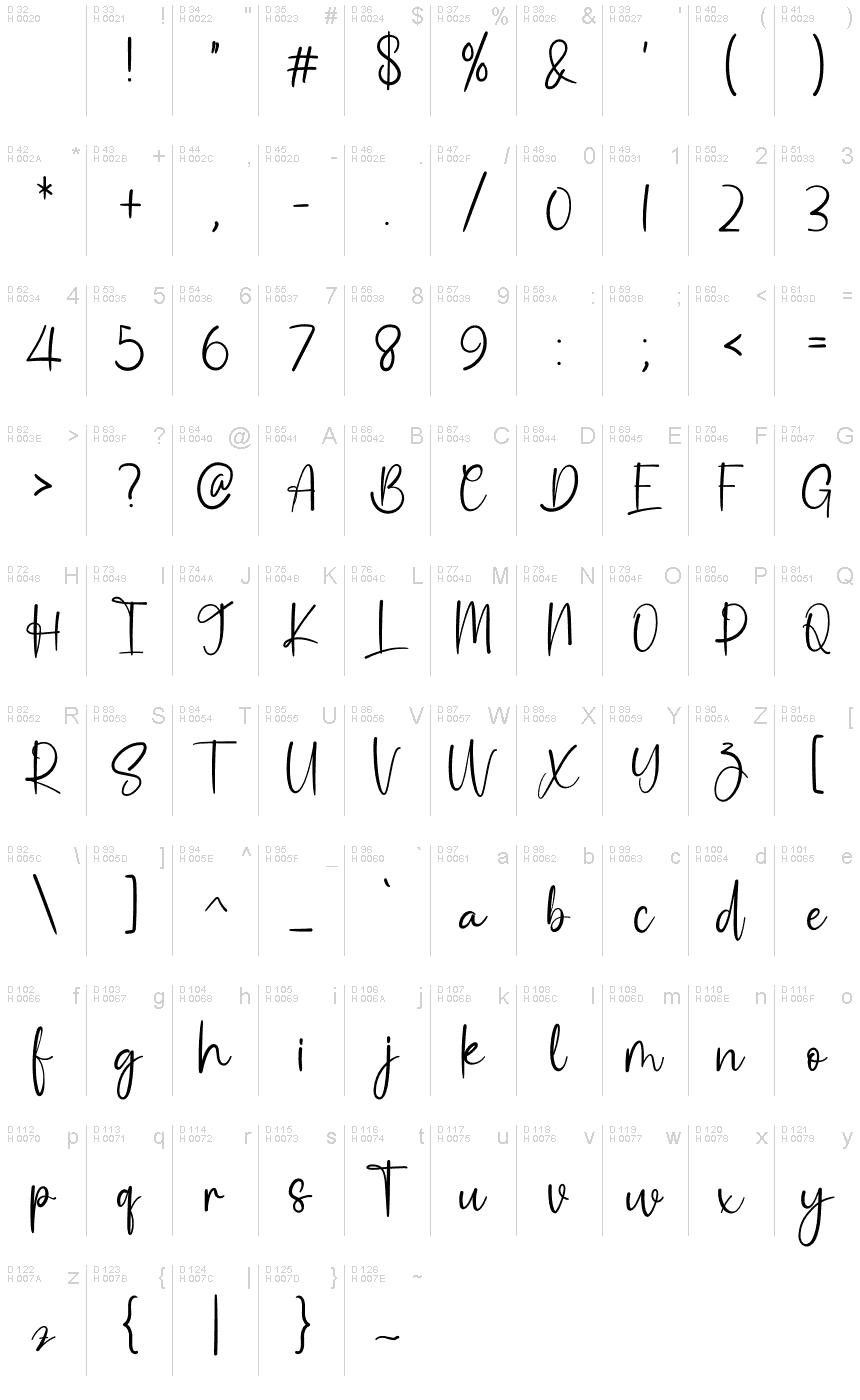
Billabong
Billabong, crafted by the talented Gunawan, stands out with its semi-light handwritten style that captures the essence of personal touch. This font exudes a casual yet sophisticated charm, making it an ideal choice for designers looking to infuse their work with warmth and character. Its flowing, easy-to-read letterforms are perfect for a variety of creative projects-from whimsical invitations to heartfelt greeting cards.